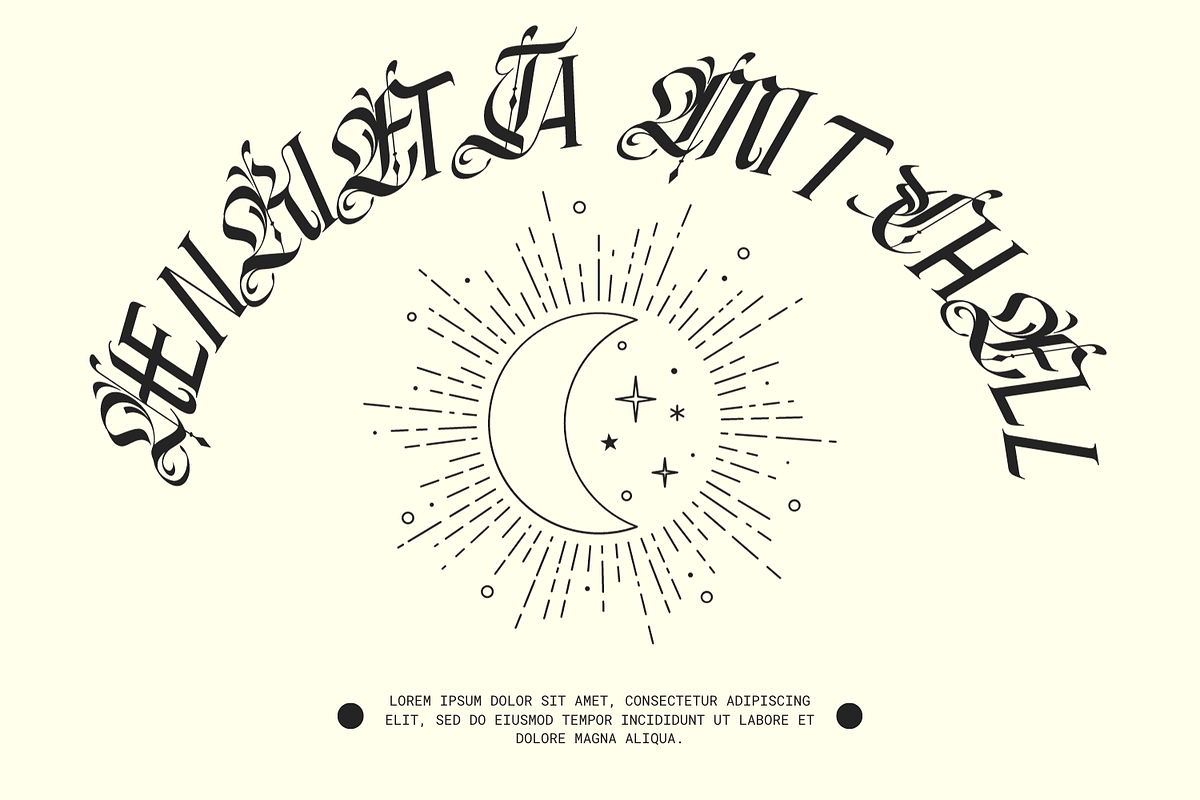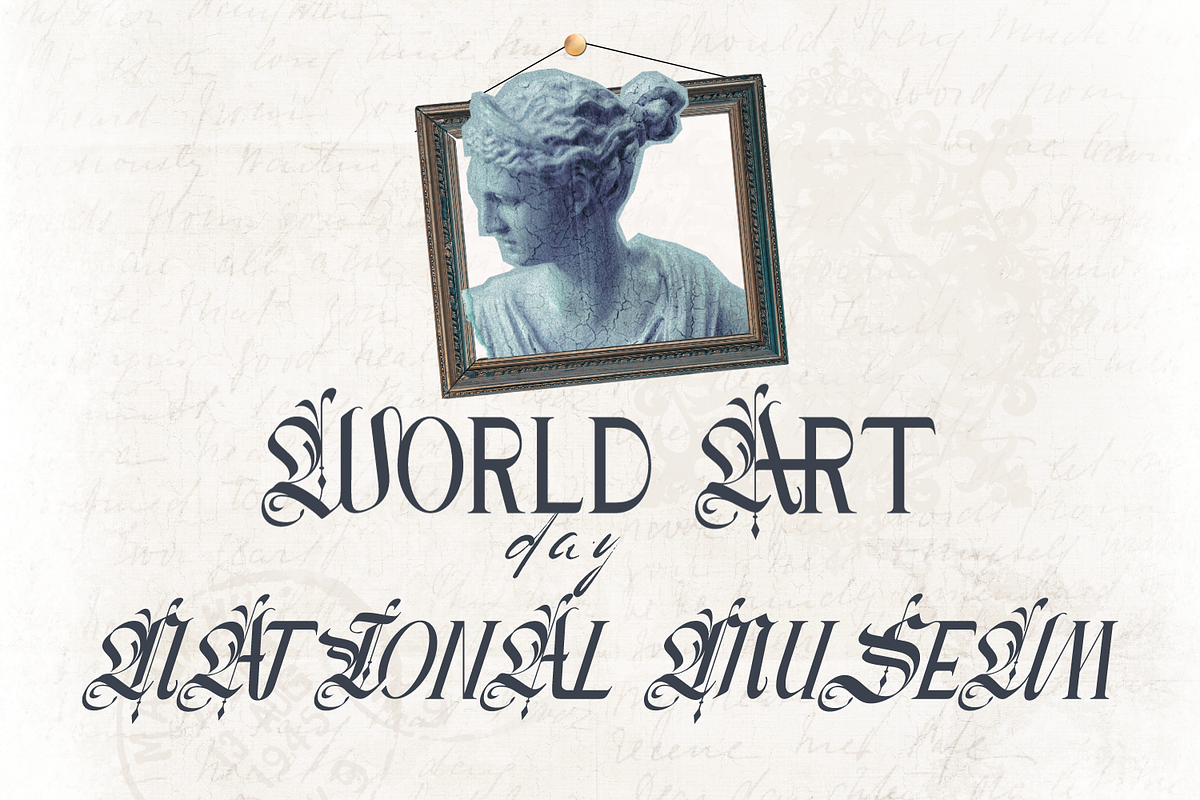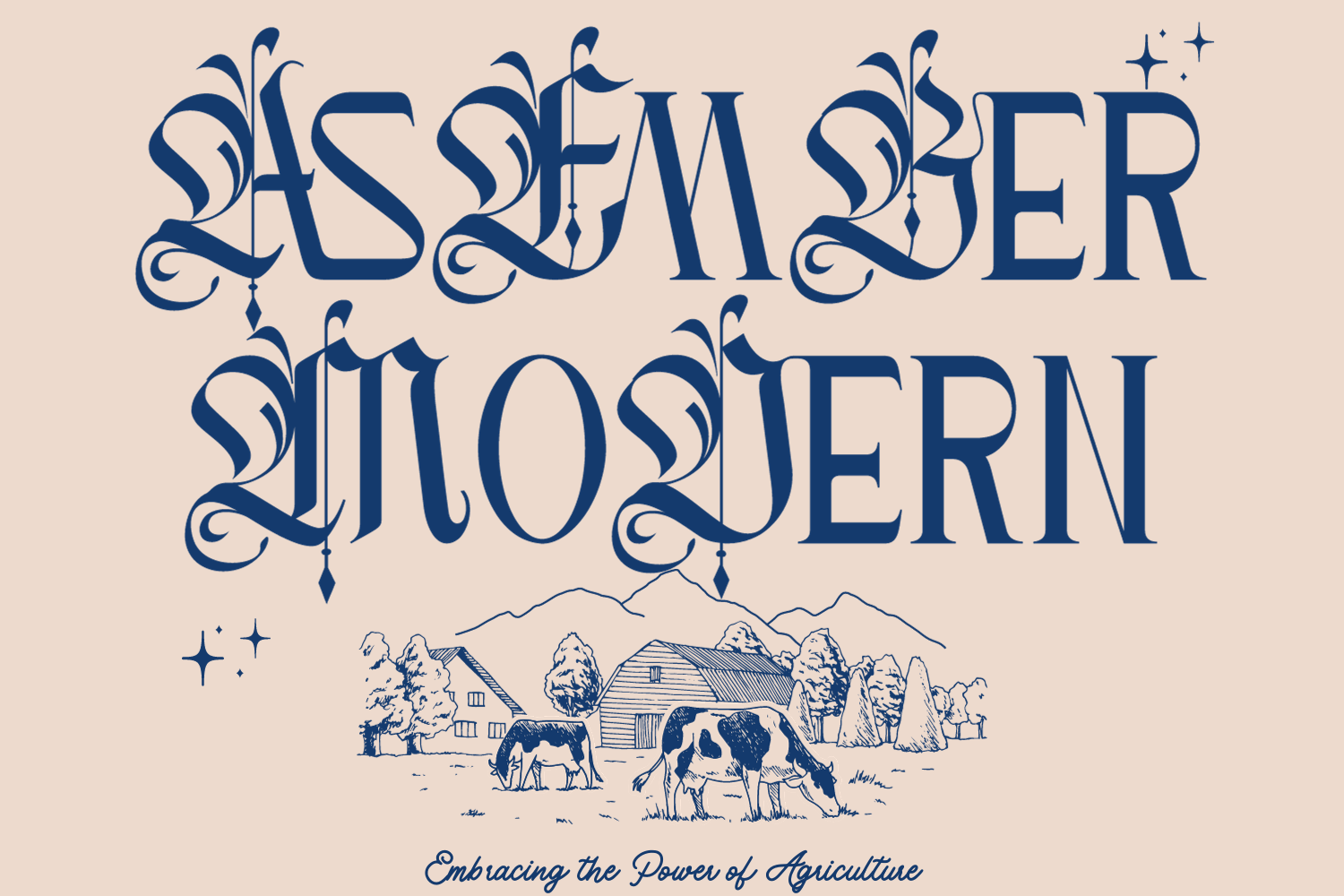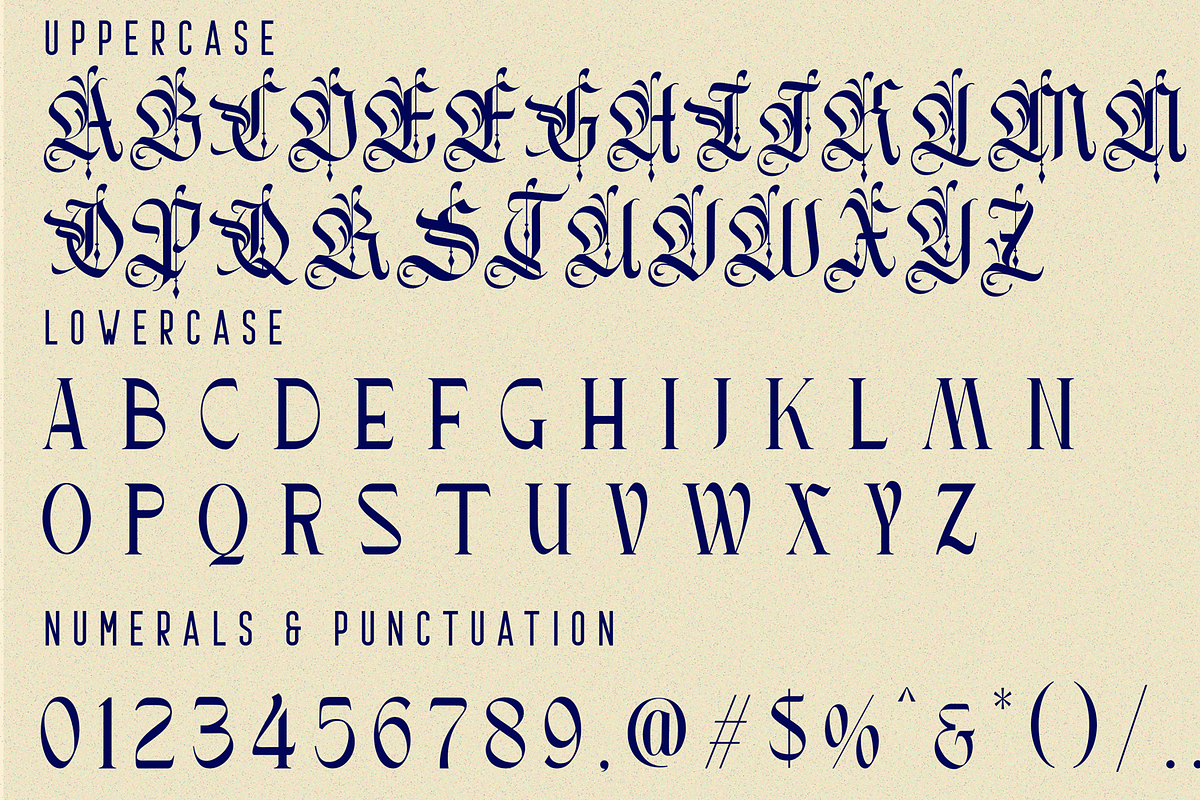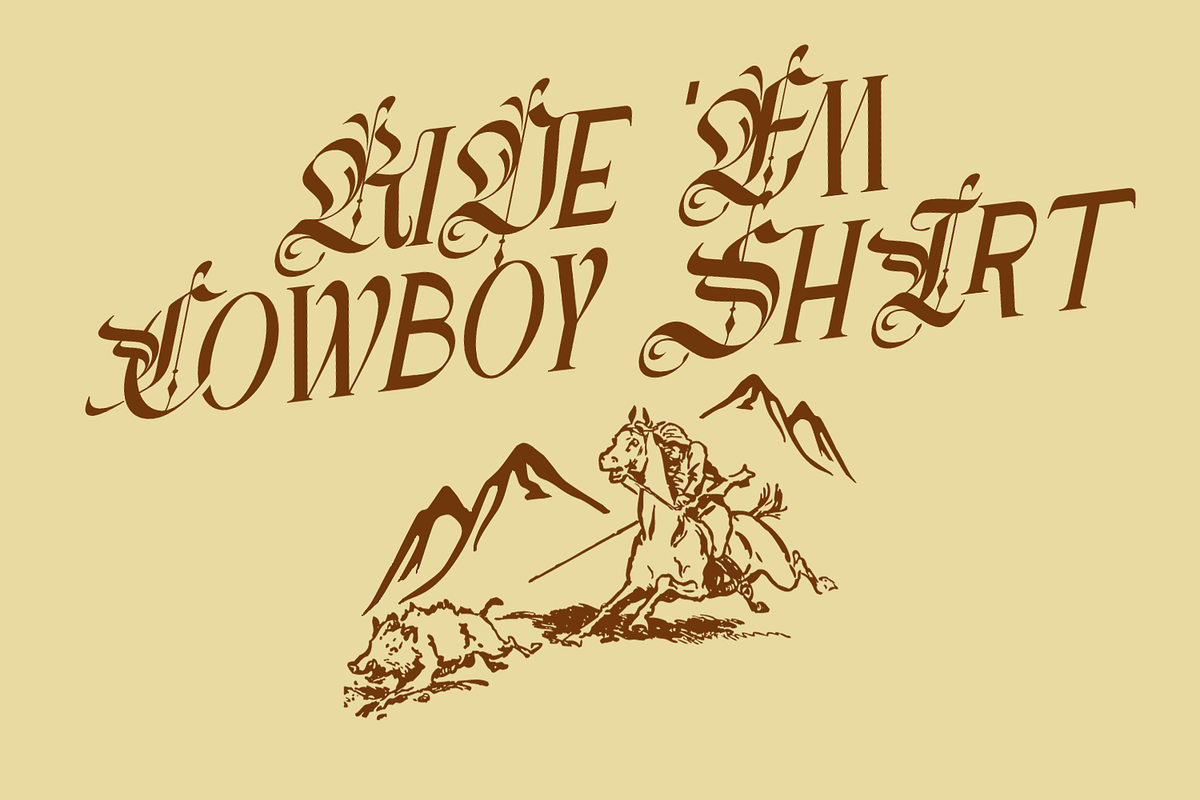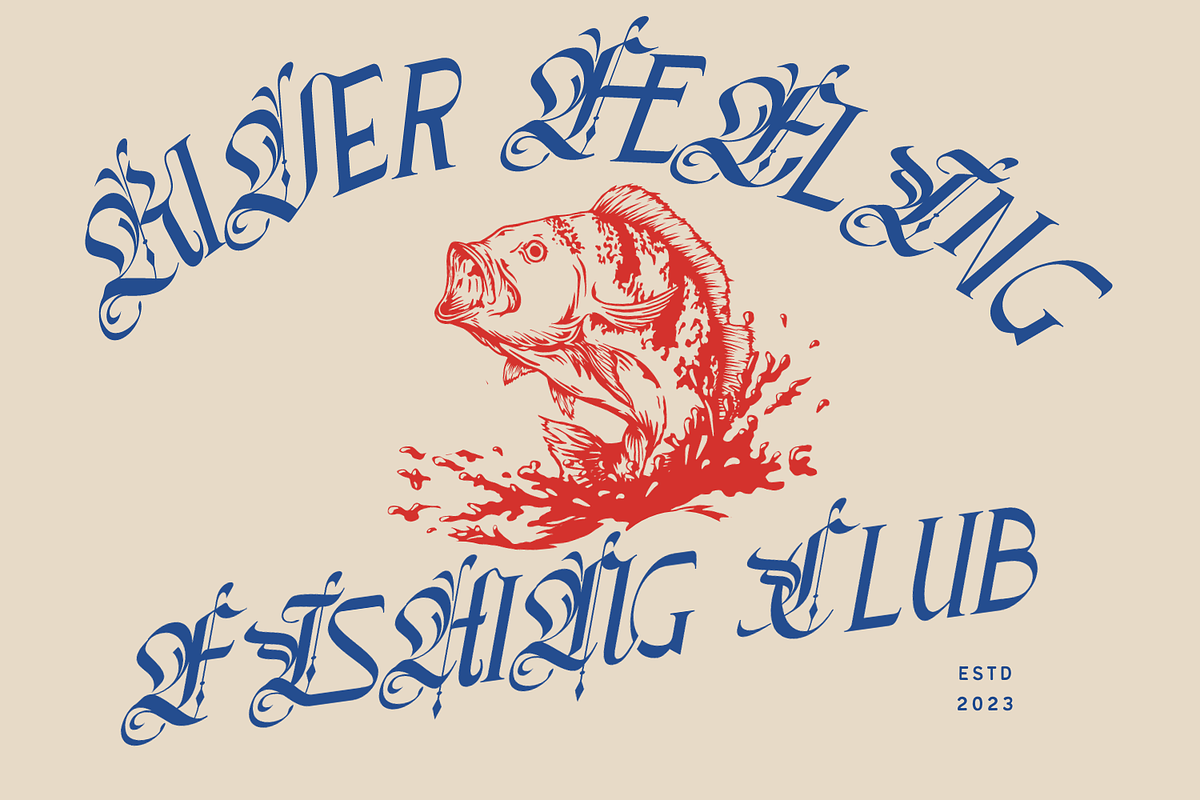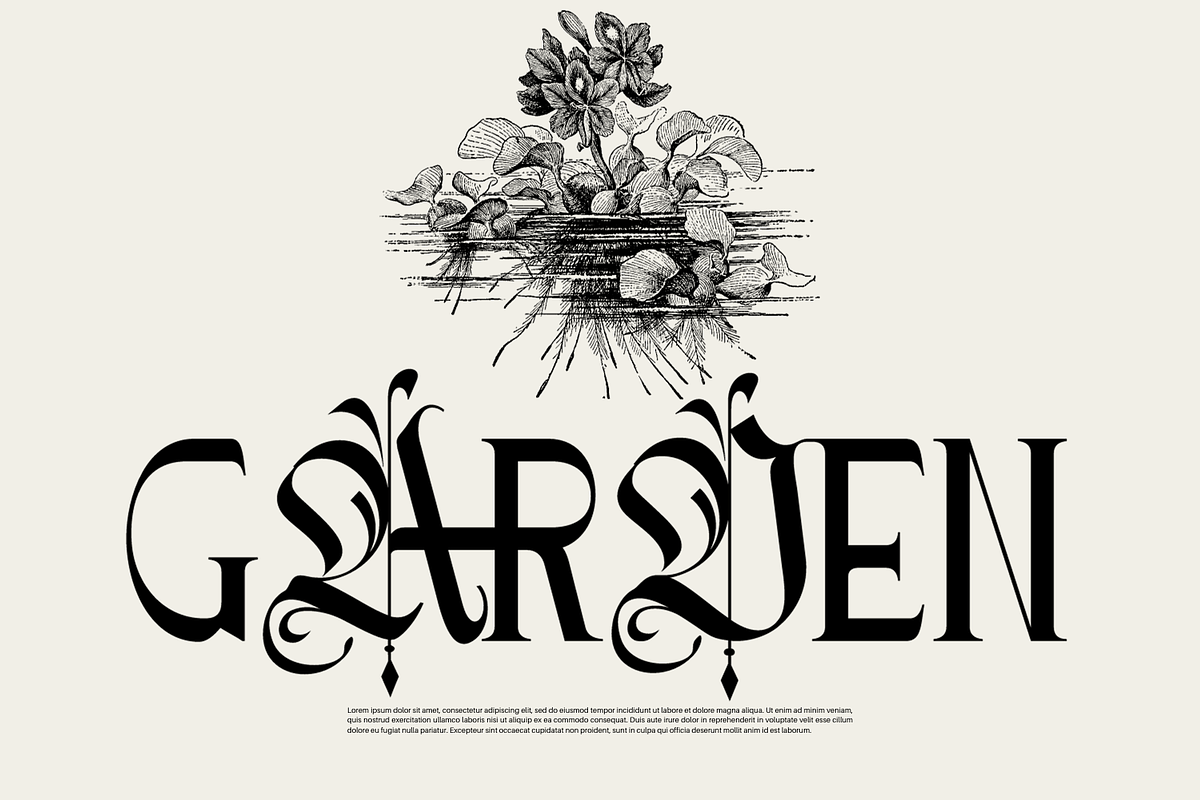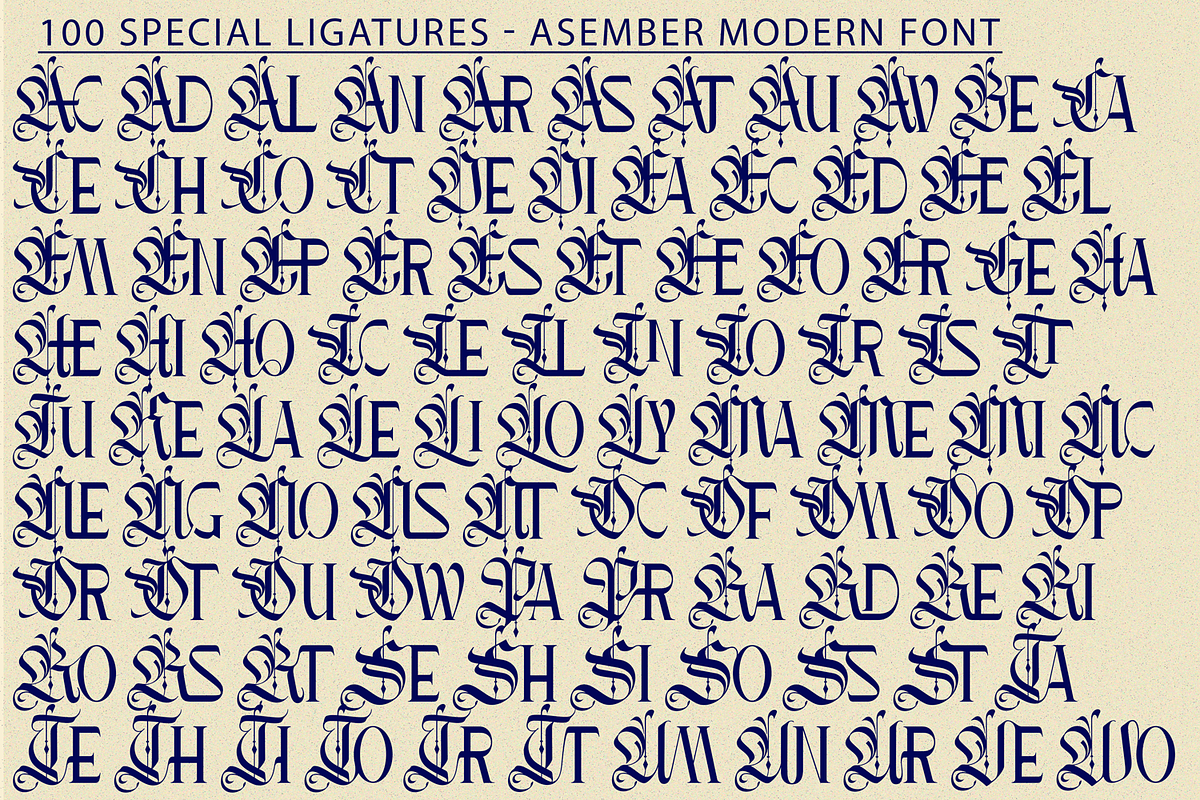
Asember Modern - Hybrid Font
Asember Modern - Hybrid Font is a gorgeous and luxury mix of classic blackletter and modern serif fonts. All Uppercase letters have a blackletter style and may by insert anywhere in the word to create unique logo, name or display title. Just type them via Uppercase. The font combines elements of both modern serif and blackletter styles, creating a striking and distinctive appearance. It’s a font that combines blackletter style with serif font. It is suitable for vintage, metal, tattoo, and modern designs because it blends traditional and modern elements.
Asember Modern was built with OpenType features and includes 100 ligatures, alternate, numbers, punctuation, and it also supports other languages.
AC AD AL AN AR AS AT AU AV BE CA CE CH CO CT DE DI EA EC ED EE EL EM EN EP ER ES ET FE FO FR GE HA HE HI HO IE IC IL IN IO IR IS IT JU KE LA LE LI LL LO LY MA ME MI NC ND NE NG NO NT NS OC OF OM ON OO OP OR OT OU OW PA PR RA RD RE RI RO RS RT SE SH SI SO SS ST TA TE TH TI TO TR TT UM UN UR VE WI WO
- Special Ligatures